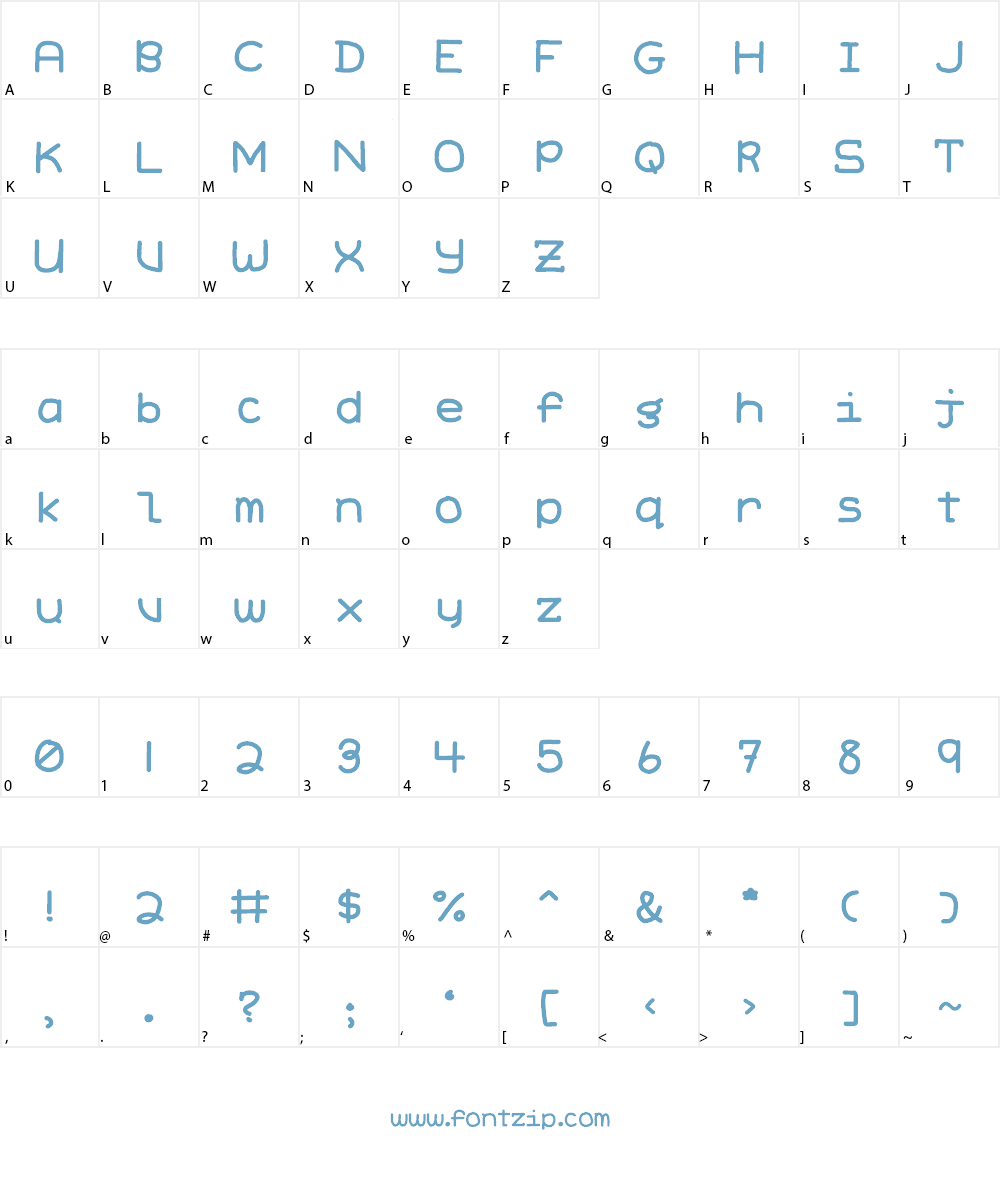
A Japanese typeface ideal for children 3 years, which is great for kids stuff. Rounded Mgen (http://jikasei.me/font/rounded-mgenplus/ ) is used to derive the Kanji characters.